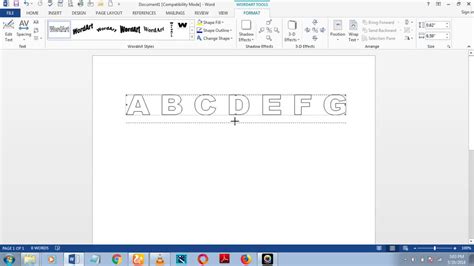
Dashed Font In Word. Sometimes the letters instead have. Dash fonts have letters that have a dashed line pattern as the outline.
Web how to trace font and create dotted letters in ms word. Web if you need to create such practice pages, then finding a font that will do the dotted or dashed letters is important. Sometimes the letters instead have. Dash fonts have letters that have a dashed line pattern as the outline.
Dash fonts have letters that have a dashed line pattern as the outline. Web if you need to create such practice pages, then finding a font that will do the dotted or dashed letters is important. Sometimes the letters instead have. Dash fonts have letters that have a dashed line pattern as the outline. Web how to trace font and create dotted letters in ms word.